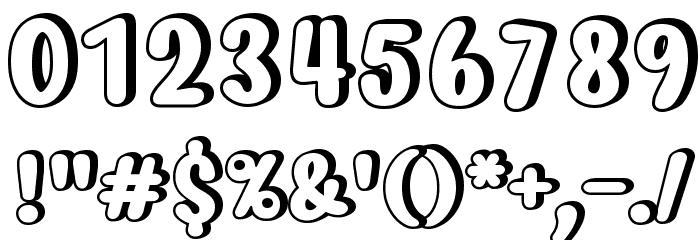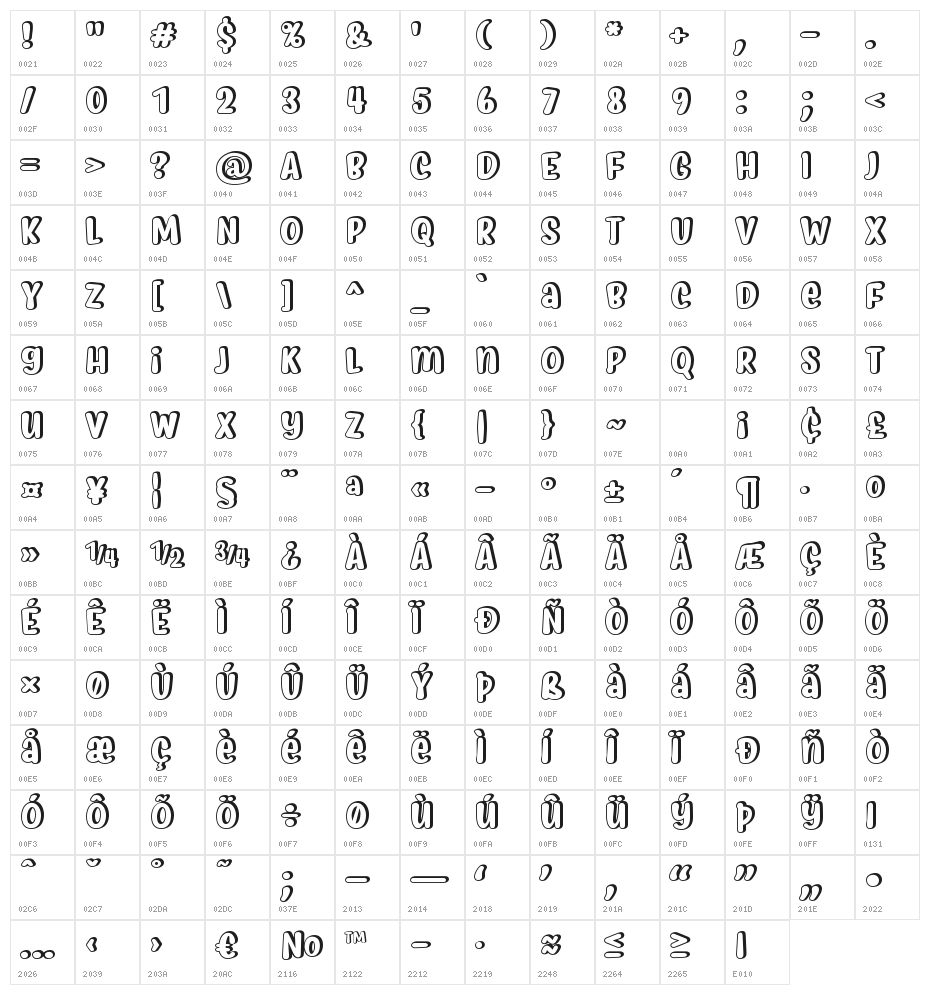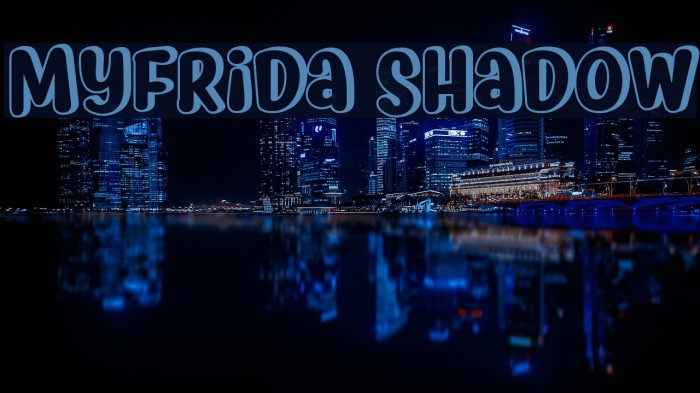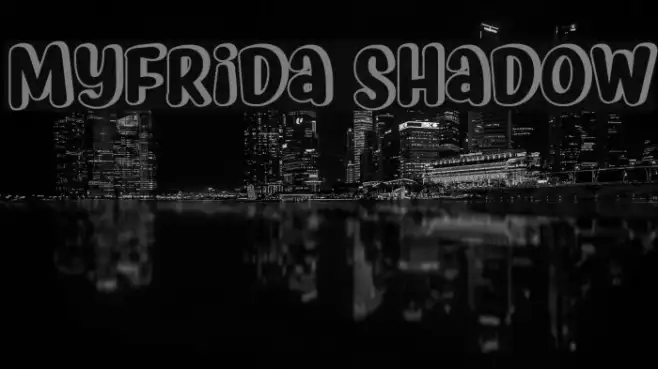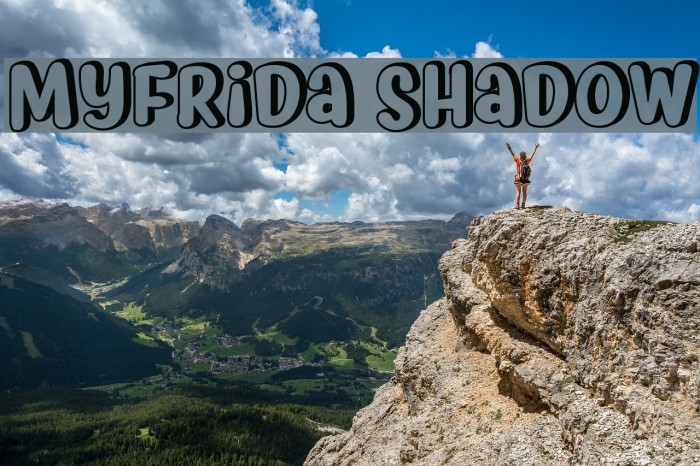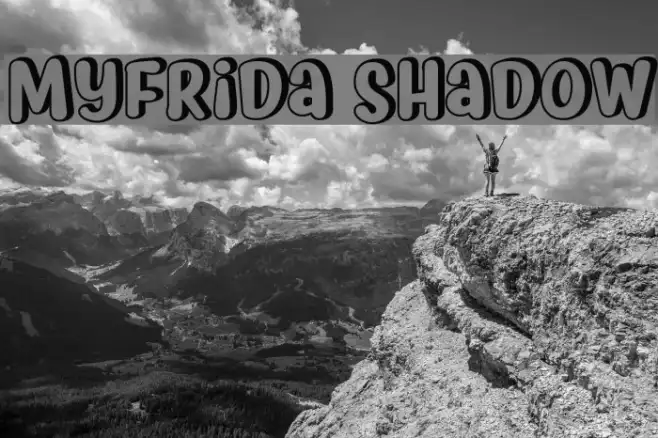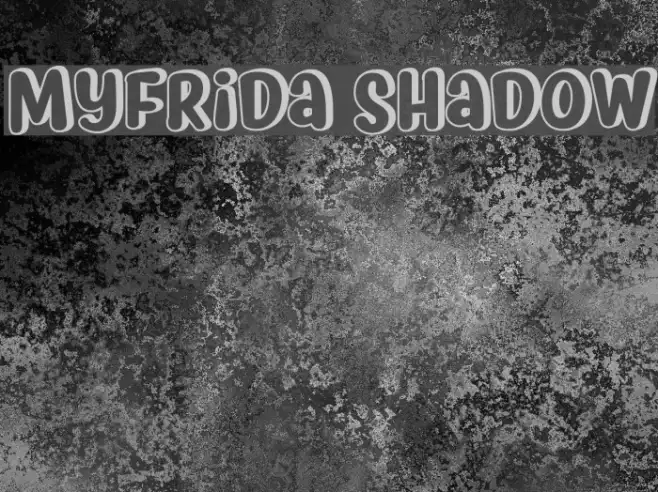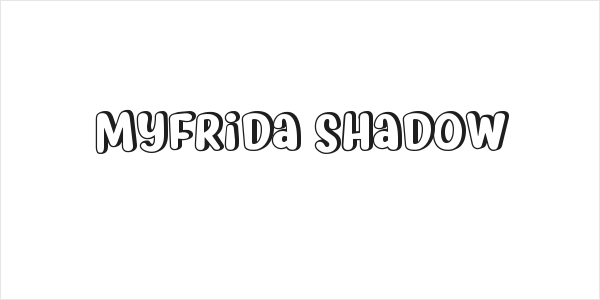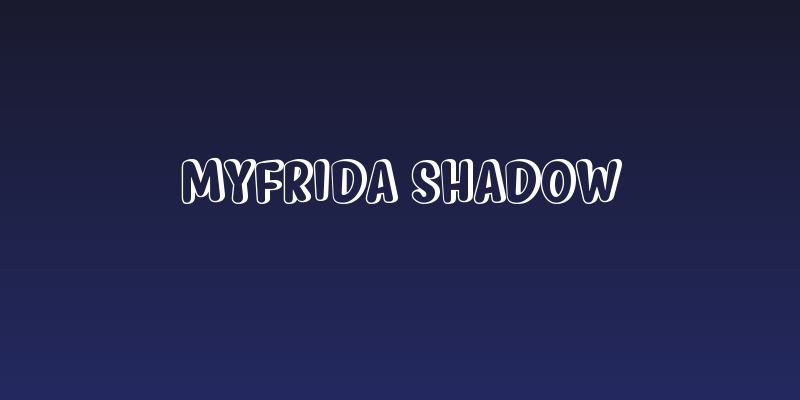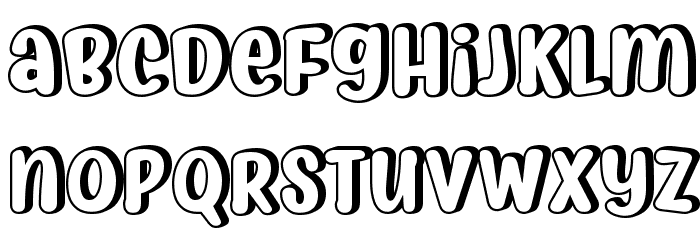
Myfrida Shadow Font
Myfrida Shadow Description
This playful and bold font features a unique shadow effect that adds depth and dimension to each character. The letters are rounded and thick, giving a friendly and approachable feel. The shadow creates a 3D illusion, making the text stand out prominently. This style is reminiscent of retro or comic book aesthetics, with a modern twist. The font maintains consistent thickness throughout, ensuring readability while adding a touch of fun and creativity. Its distinct appearance makes it suitable for eye-catching designs.
| Overall Style | Playful, Retro |
| Proposed Projects | Ideal for comic books, children's books, playful branding, posters, and creative advertisements. |